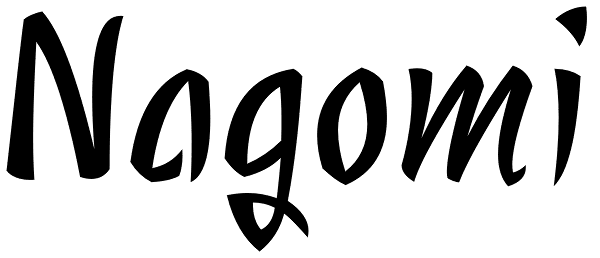
Nagomi
Nagomi is a Japanese-style font based on calligraphy by Chikako Larabie. In addition to several Latin based languages, Nagomi contains Japanese katakana and hiragana characters.